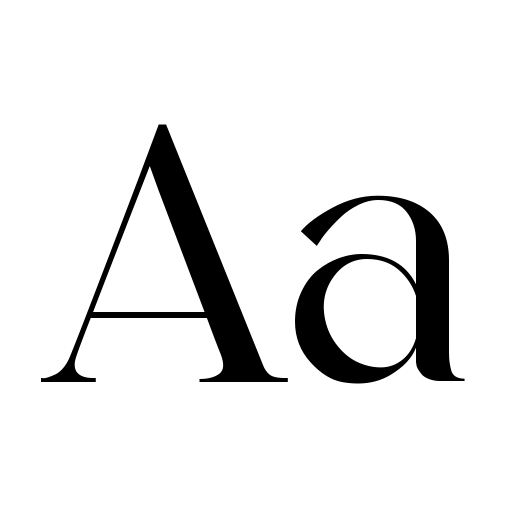
Candlefish is an elegant serif font that blends high contrast between thick and thin strokes with delicate, bracketed serifs, giving it a sophisticated and refined look. Its slender letterforms, tall x-height, and classic details make it perfect for luxury branding, editorial headlines, and stylish packaging where a timeless, graceful feel is desired. This font shines in creating a polished and upscale impression while maintaining readability and class.
Candlefish Font
About Candlefish Font